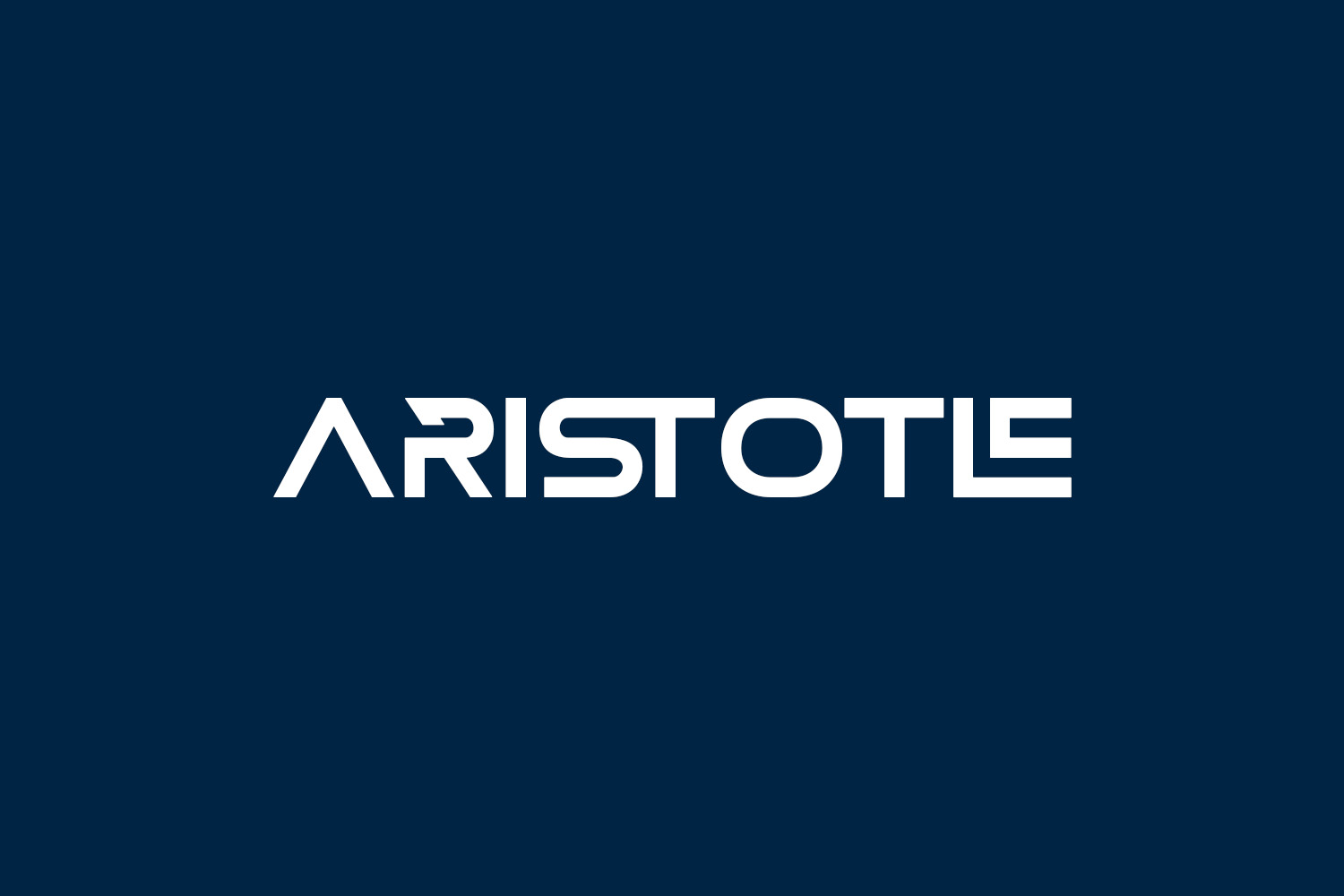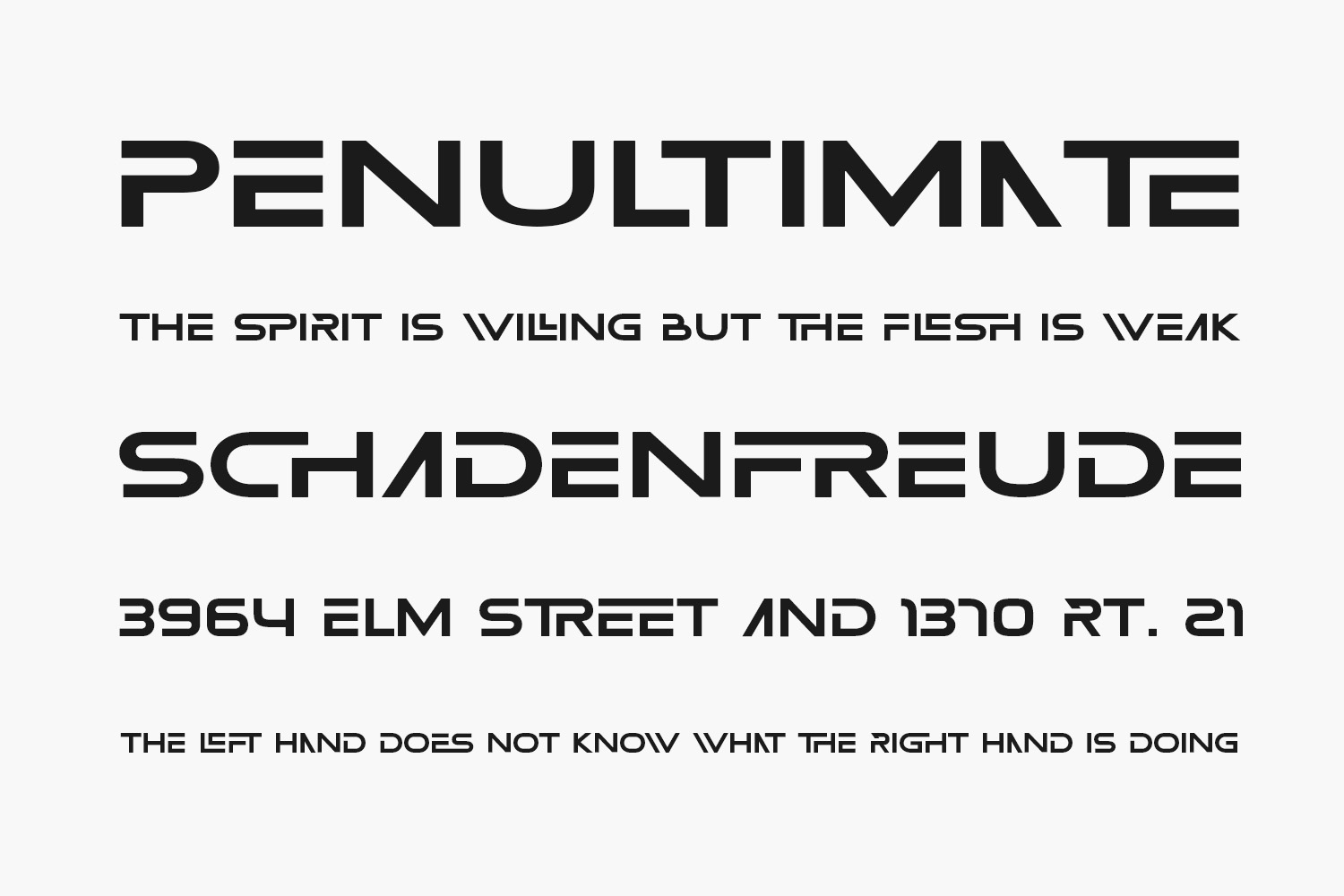
Aristotle Free Font Family is a thick lettered and robotic display font. This font is PUA encoded which means you can access all of the amazing glyphs and ligatures with ease. Aristotle Free Font Family was designed by 177Studio and is free for personal use only. Please purchase the full version for commercial use.
Aristotle Regular The quick brown fox jumps over the lazy dog
Aristotle Bold The quick brown fox jumps over the lazy dog